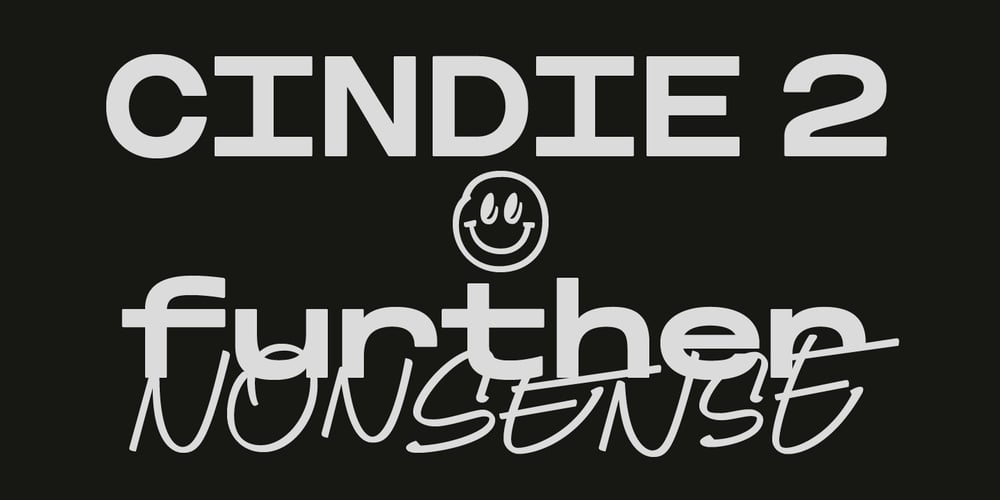
Cindie 2
Cindie 2 font
Cindie 2 Font Family was designed by Lewis McGuffie and published by Lewis McGuffie Type. Cindie 2 contains 28 styles and family package options. Cindie 2 is an update of the optical type Cindie Mono. It retains the monospace-stacking system of the original, but some letters have been redrawn. It also now includes a lowercase and Cindie 2 has a script accompaniment (which isn’t mono and should be used with Contextual Alternates turned on!). Good for posters, branding and headlines, Cindie 2 has 26 monospaced widths which will fit any job. Cindie 2 also comes as a Variable Font.